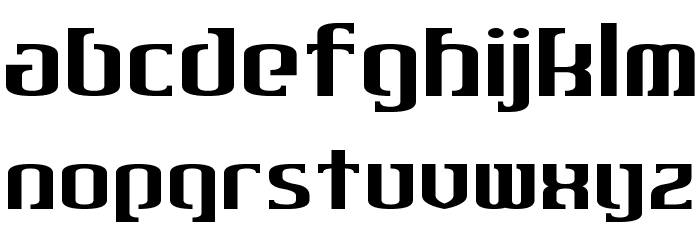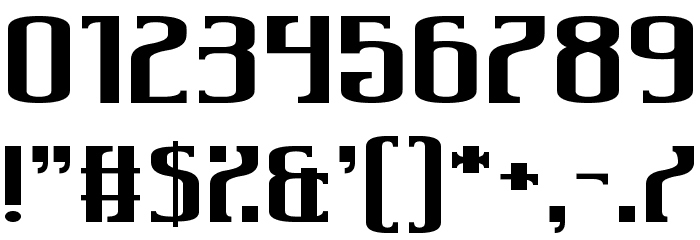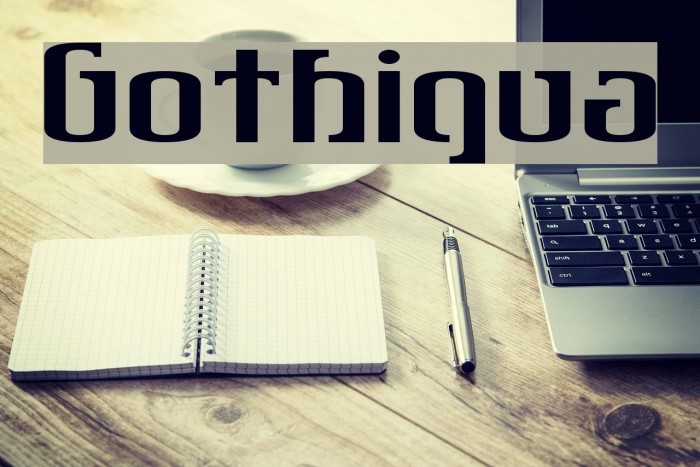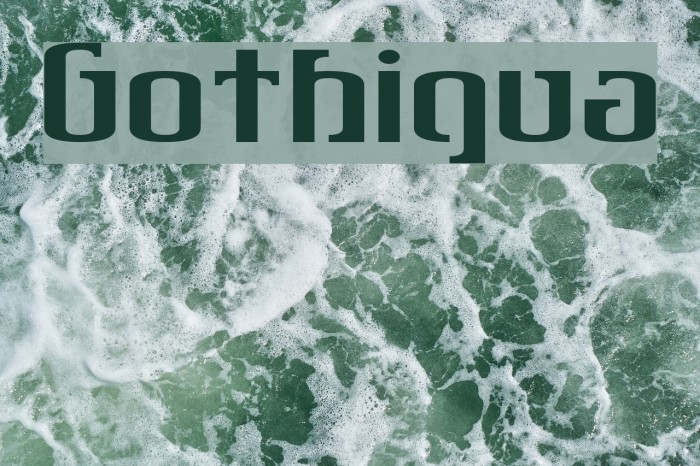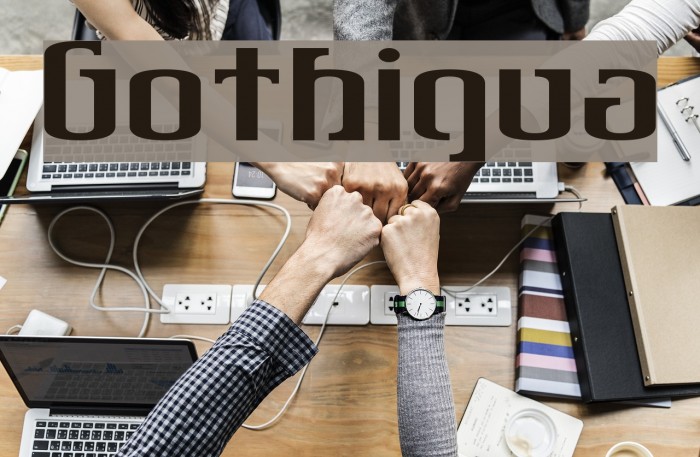
Gothiqua Font
This font features a bold and striking design, characterized by its strong vertical lines and sharp angles. The uppercase letters exhibit a unique blend of modern and gothic influences, with a distinct geometric structure. The lowercase letters maintain a consistent style, offering a seamless transition between characters. Numbers and special characters are crafted with the same attention to detail, ensuring a cohesive look across all elements. The overall appearance is both authoritative and stylish, making it suitable for a variety of design projects.
A bold, modern font with gothic influences and geometric structure.
- Proposed Projects: Ideal for branding, posters, headlines, and any project requiring a bold, impactful typeface.